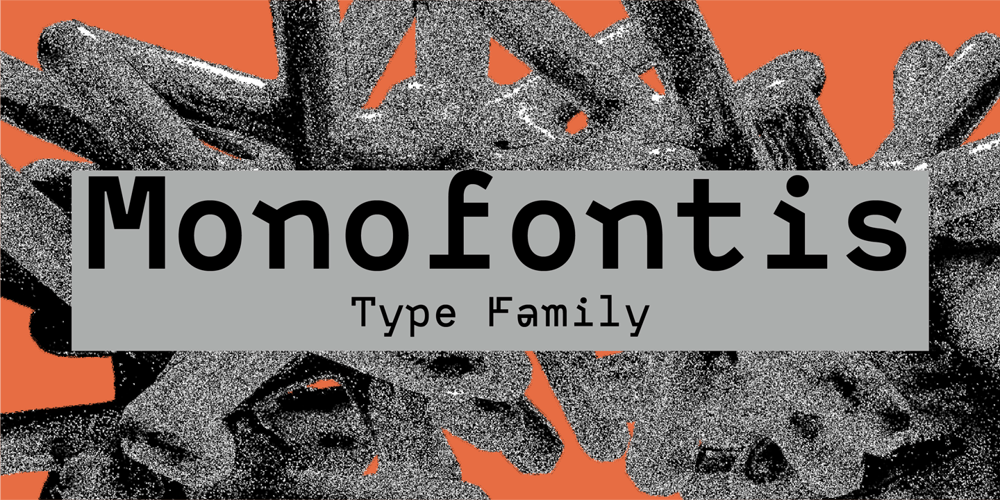
Monofontis
Monofontis font
Monofontis Font Family was designed by Kyrylo Tkachov, Maria Weinstein and published by AlfaBravo. Monofontis contains 18 styles and family package options. Monofontis is a contemporary, monospaced display typeface full of ligatures and glyphs to keep your designs stylish, modern, and standing out in a crowd. Monofontis typeface has a contrasting character that combines laconic technical forms, extraordinary details, and calligraphic grace, most noticeable in Italic. As a monospaced typeface, Monofontis will be indispensable for magazine titles, headlines, and short text fragments, logos and branding, web and interface design, posters, and advertising due to its unique nature. Furthermore, Monofontis is an excellent match for a tabular design, columns, clear and rigid layouts, and programming code.Monofontis consists of 18 styles: 9 styles in the Basic family, 9 styles in Italics.